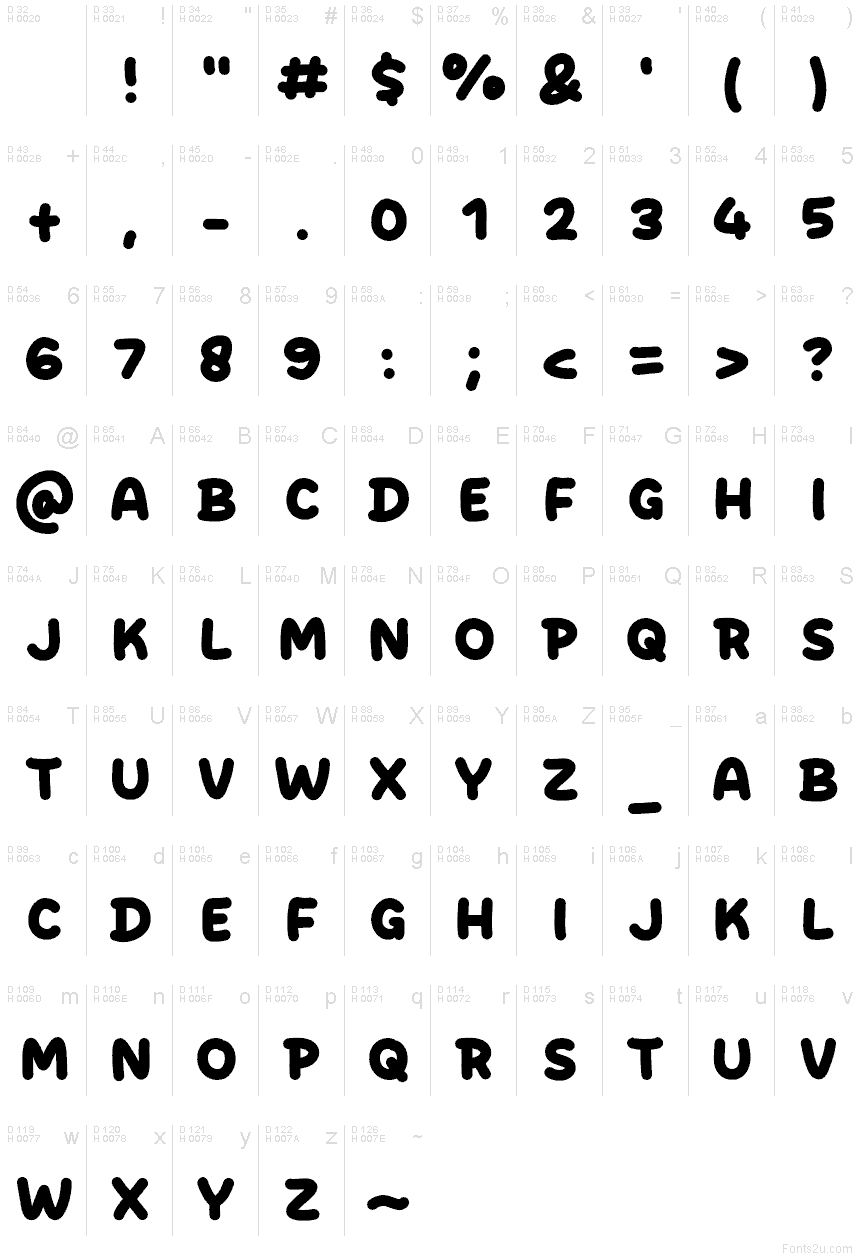
Public Stand
Public Stand font by MJType is a bold handwritten font with rounded letters and a robust design. This public display of stylishness has elements that appear casually with retro vibe influences that give it a friendly appearance and approachable style. The font is intended primarily for modern applications that bring together style while suing usability.
Add this free handwritten font to your branding projects, designing familiar logotypes for family restaurants and bars, badges, bottle designs, t-shirt designs or stationery items such as business cards or ivory paper envelopes. Opt for informal use with casual marketing materials like banners and flyers and even book covers or magazine headers.